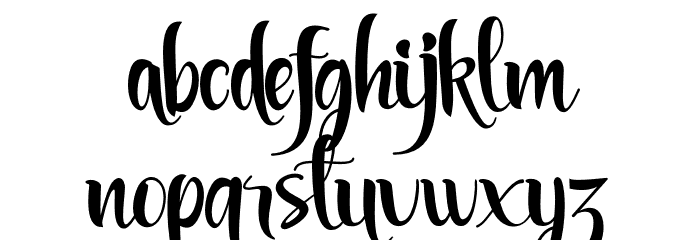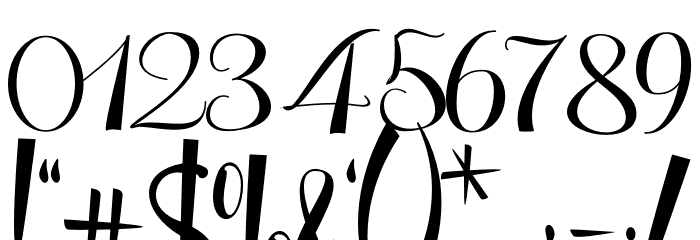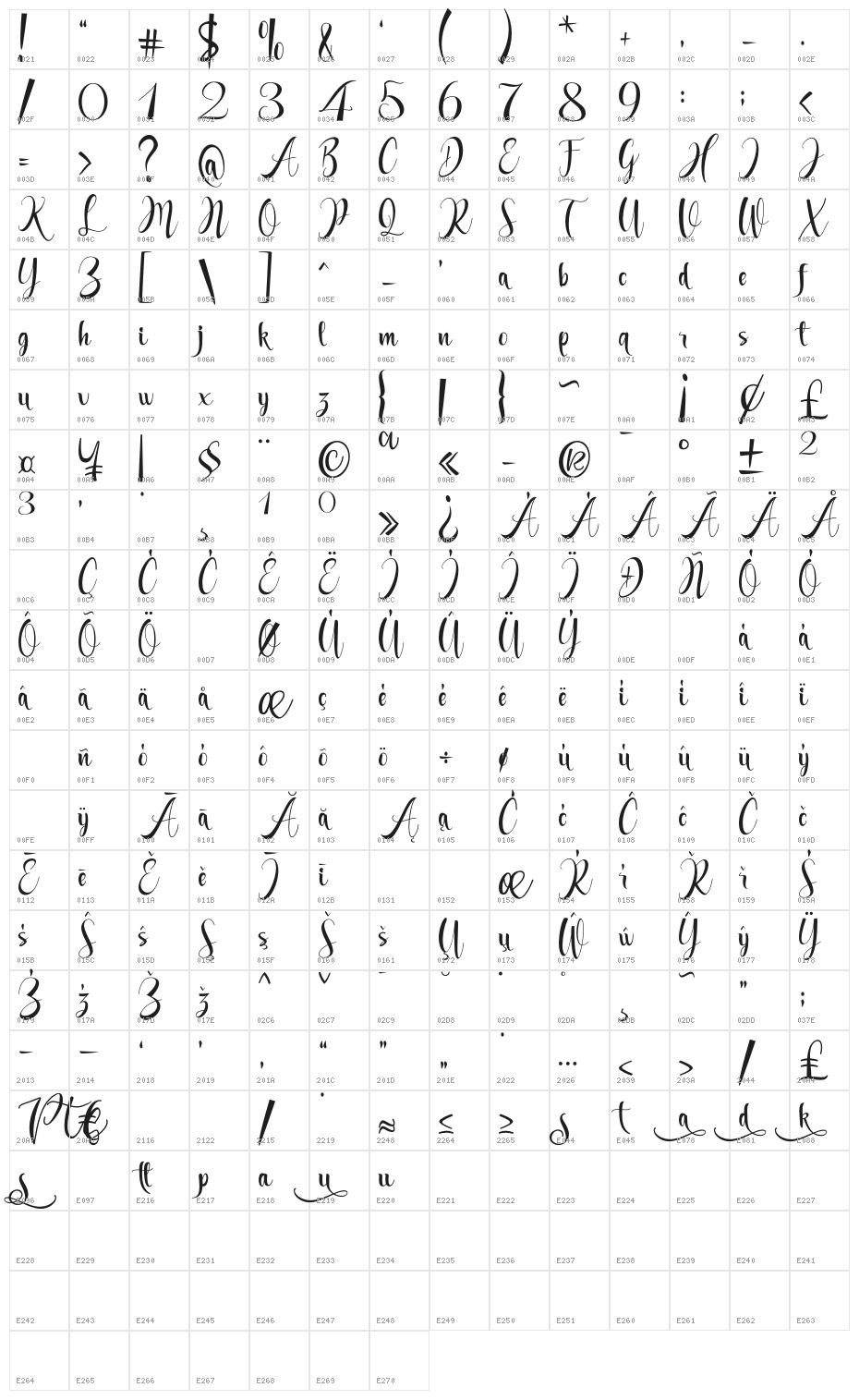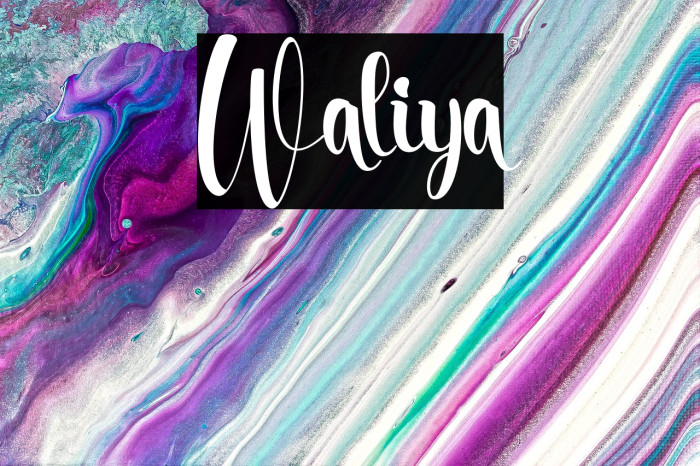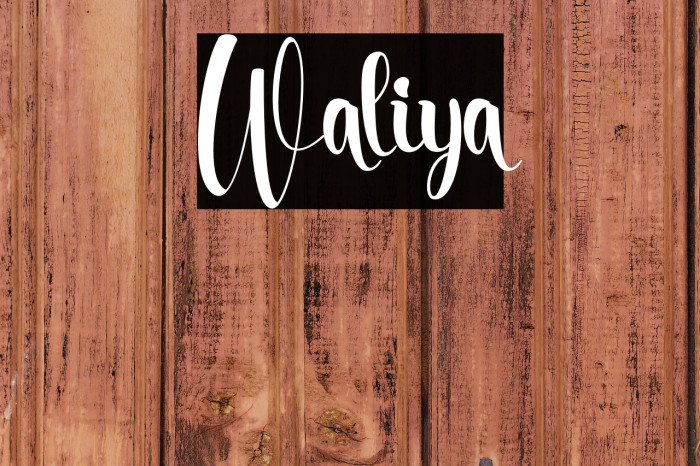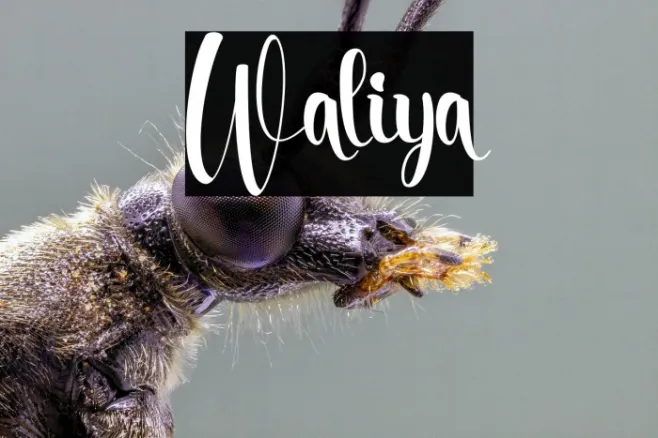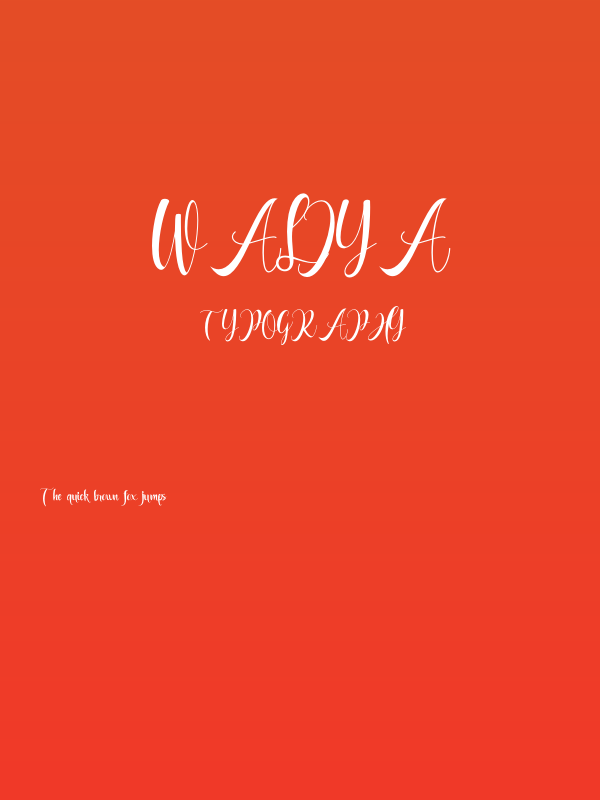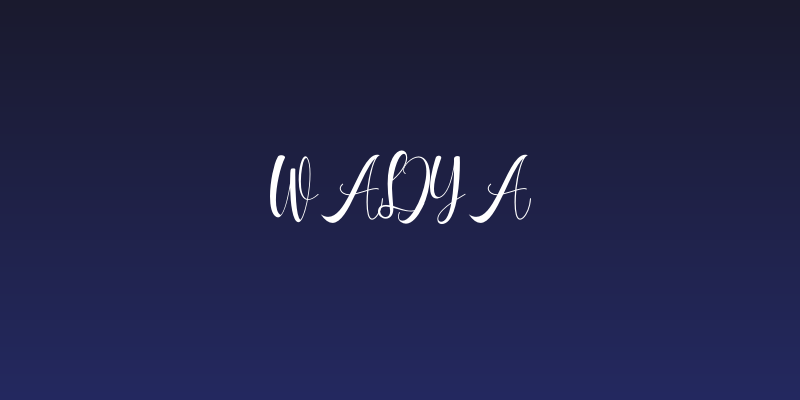
Waliya Font
This elegant script font features flowing, cursive strokes that give it a sophisticated and artistic appearance. The uppercase letters are characterized by their sweeping curves and loops, while the lowercase letters maintain a consistent fluidity that enhances readability. The numerals are stylishly designed, complementing the overall aesthetic of the font. Special characters are crafted with the same attention to detail, making them seamlessly integrate with the rest of the typeface. This font exudes a sense of grace and creativity, making it suitable for a variety of design applications.
A graceful and artistic script font with flowing cursive strokes.
- Proposed Projects: Ideal for wedding invitations, elegant branding, artistic posters, and personal stationery.
- Overall Style: Elegant
- Use Case: Logos, Invitations, Artistic projects